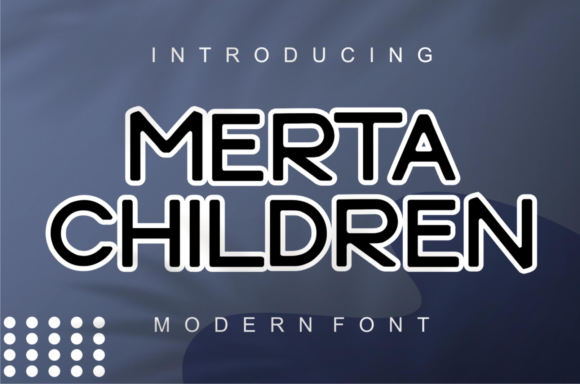
Merta Children Font
Welcome to the world of Merta Children Font, a display font that's not just a font; it's an explosion of creativity waiting to ignite your imagination. This font is designed to make your designs shine, captivating the hearts of those who lay their eyes upon it.
Merta Children Font: Where Whimsy Meets Elegance
Merta Children Font is an artistic masterpiece that exudes a playful charm, effortlessly transforming your words into captivating works of art. With its delightful curves and enchanting characters, this font will sprinkle a touch of magic into your designs, turning the ordinary into the extraordinary.
A Font That Speaks Volumes
Merta Children Font is more than just a collection of letters; it's a symphony of visual delight. Each character dances across the page, carrying with it a story, an emotion, an experience. Whether you're creating invitations, posters, logos, or any other design project, this font will elevate your work to new heights, leaving a lasting impression on your audience.
Designed for the Young and the Young at Heart
Merta Children Font has a special affinity for the young and the young at heart. Its playful nature and cheerful demeanor make it the perfect choice for children's books, invitations, and any design that aims to capture the innocence and wonder of childhood. Watch as their eyes light up with joy when they see their favorite stories and characters brought to life in this enchanting font.
A Versatile Gem for Designers
Merta Children Font is a versatile chameleon, effortlessly adapting to a myriad of creative endeavors. Whether you're a seasoned designer or just starting out, this font will seamlessly blend into your design aesthetic, enhancing your work with its timeless charm. From playful illustrations to eye-catching logos, Merta Children Font will become your go-to choice for adding a touch of magic to your projects.
Join the Merta Children Font Revolution
Don't settle for ordinary fonts that blend into the background. Embrace the uniqueness of Merta Children Font and watch as your designs transform into captivating works of art. Its vibrant personality and playful spirit will breathe life into your creations, leaving a lasting impression on all who encounter them.